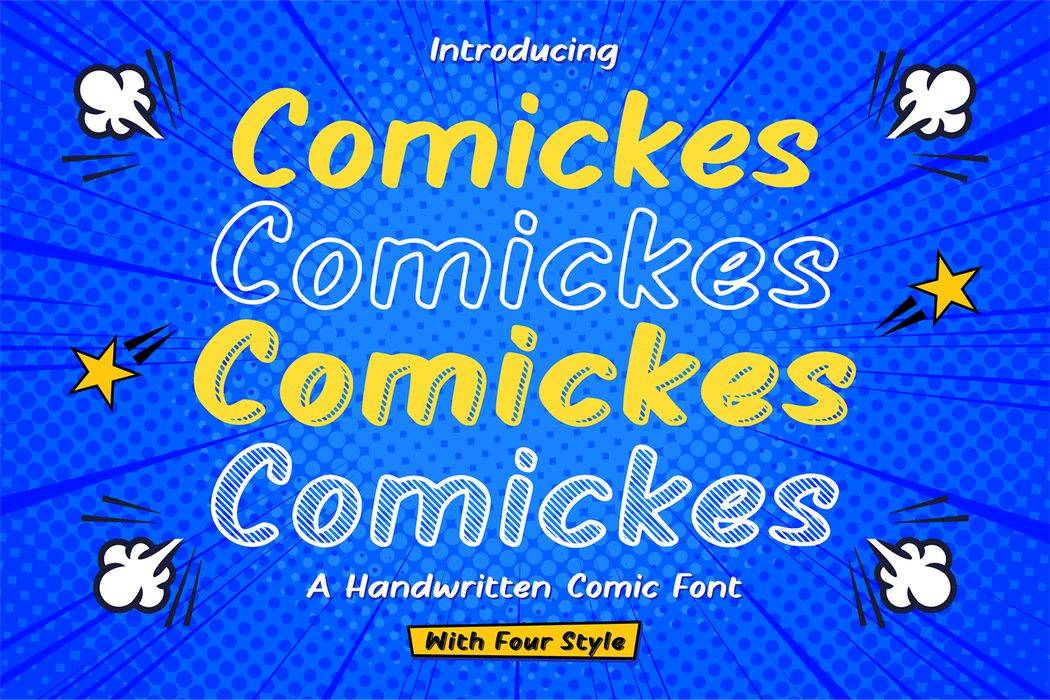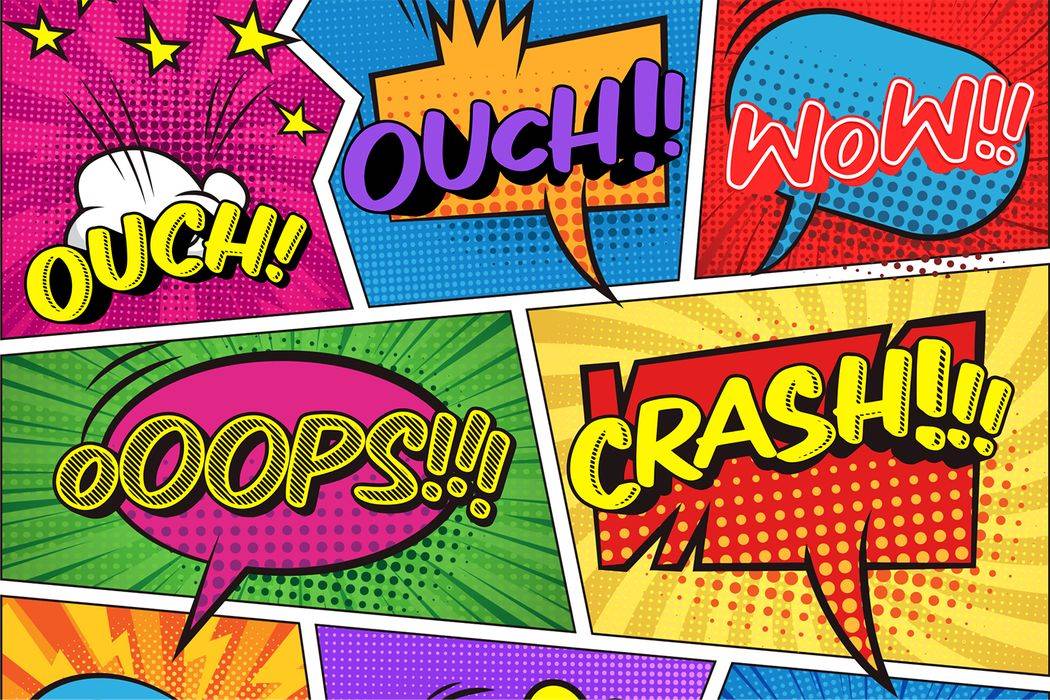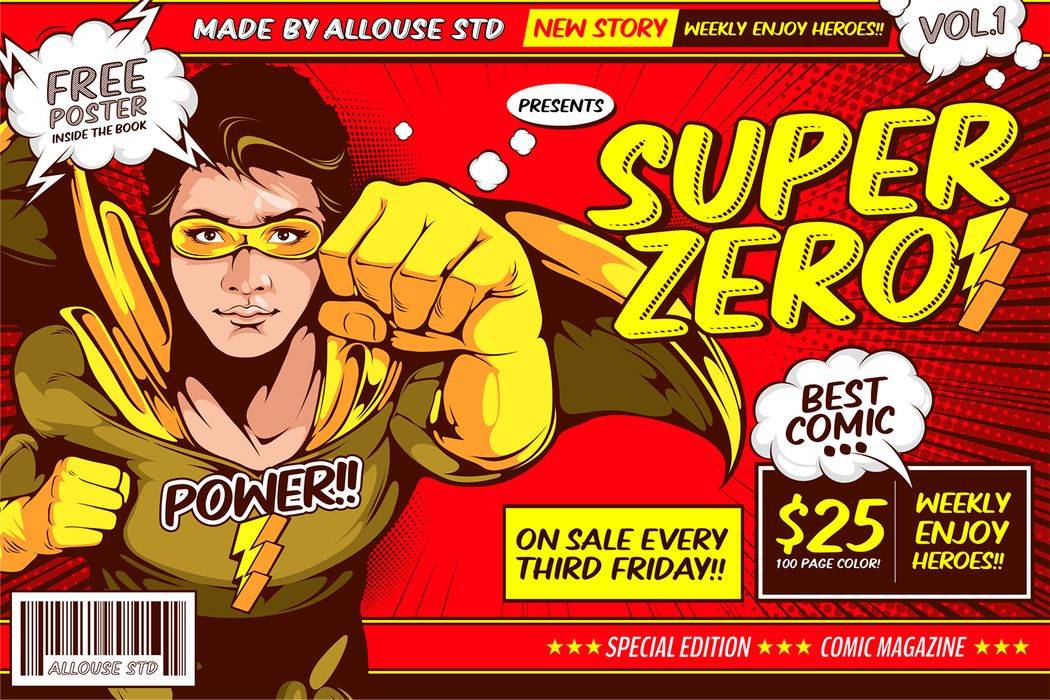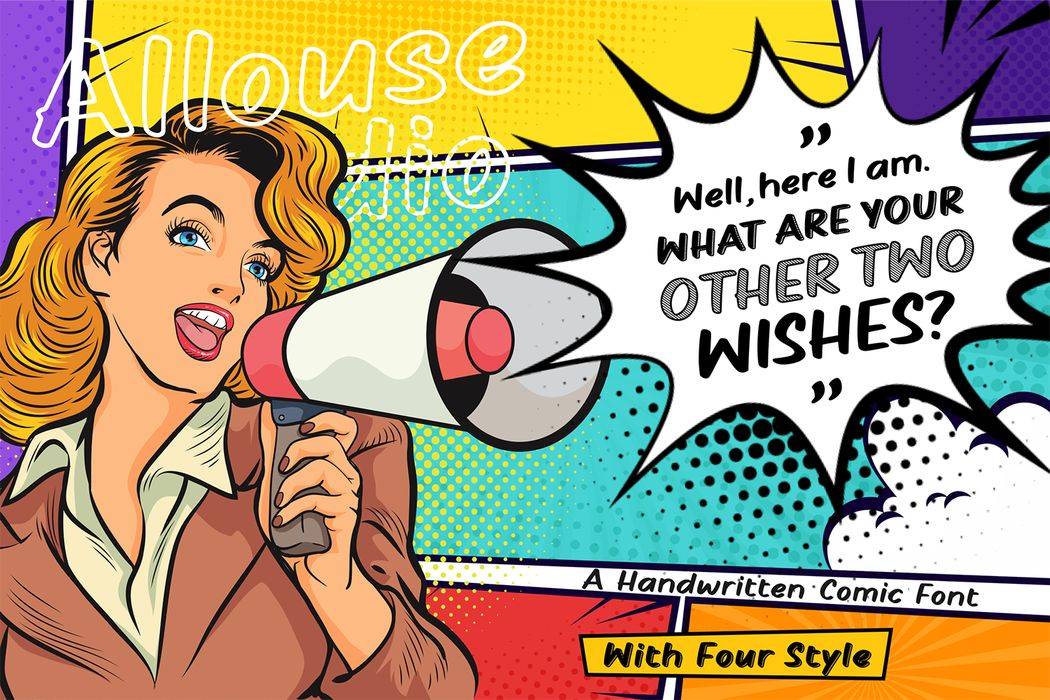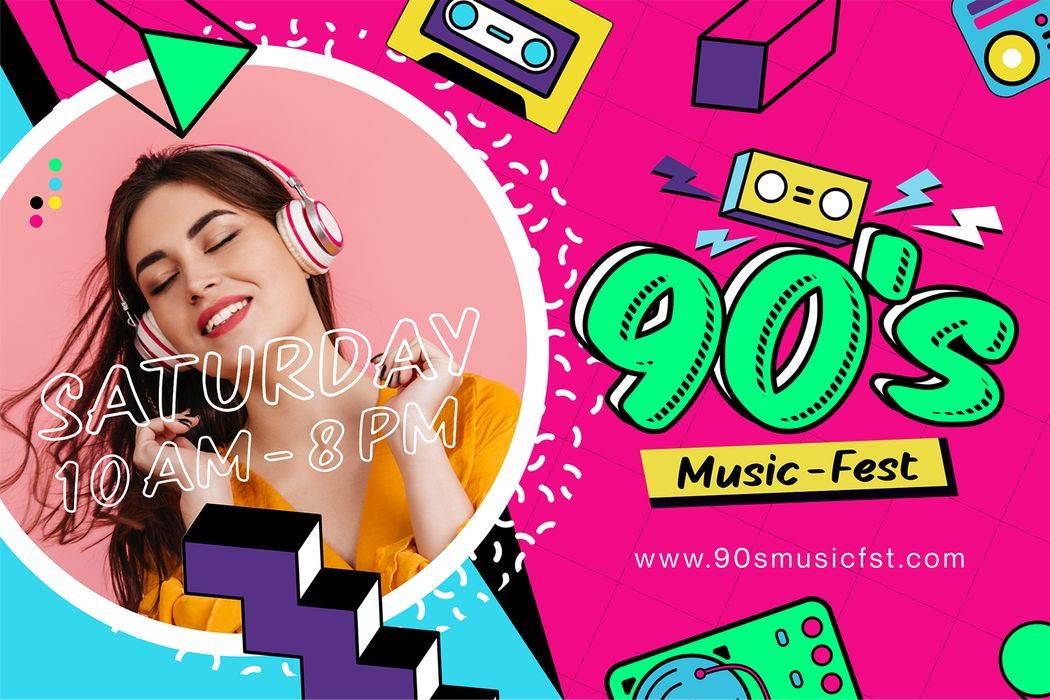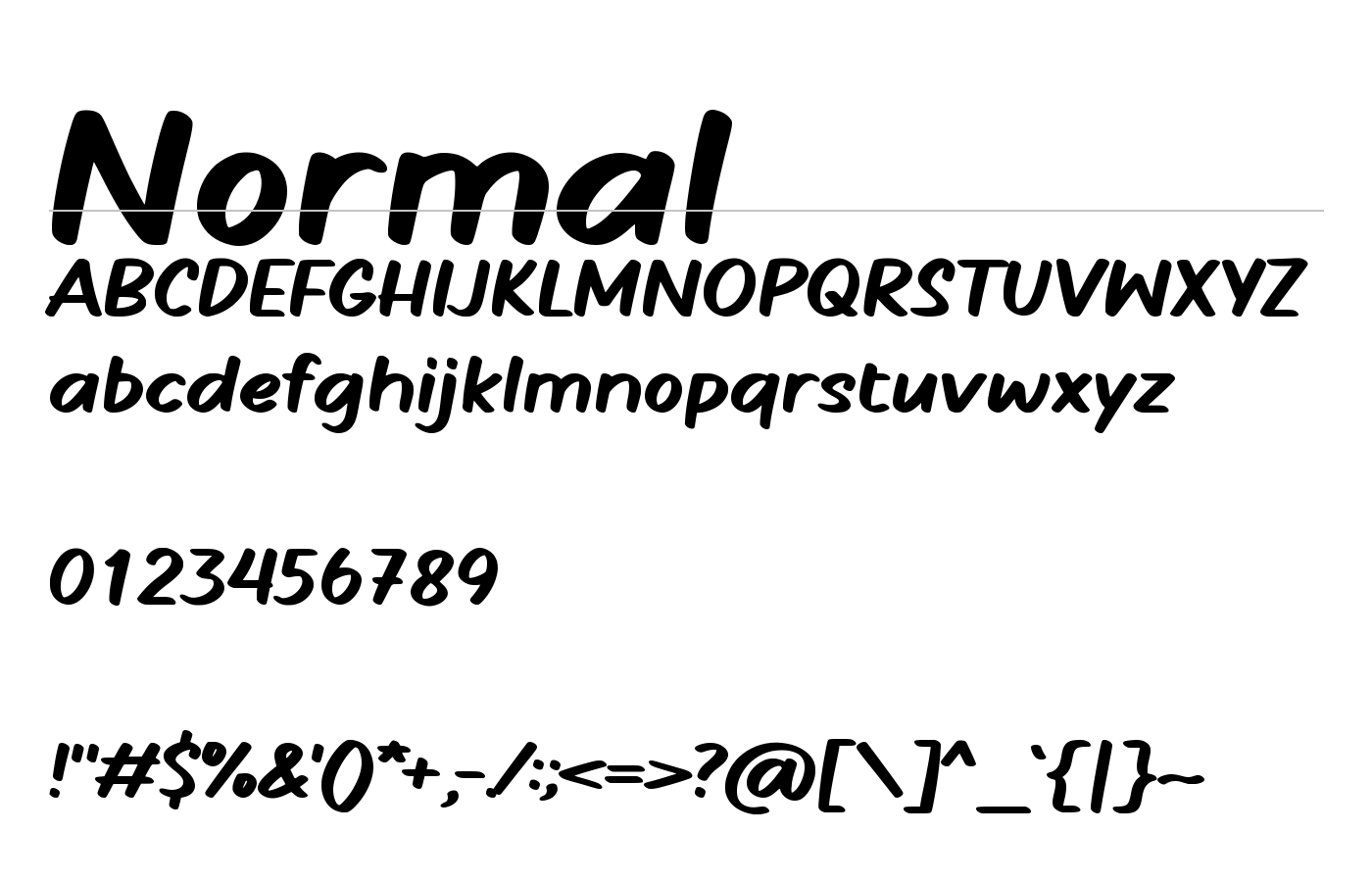
Comickes is a playful sans serif font with a bold and slightly condensed style, featuring smooth, rounded strokes and a casual, handwritten feel. Its lively letterforms and moderate x-height make it ideal for fun, informal designs such as comics, children’s books, and creative branding that seeks a friendly, approachable tone. This font works well in headlines and logos where a touch of personality and energy is desired.
Comickes Font
About Comickes Font
| Font family | Comickes Font |